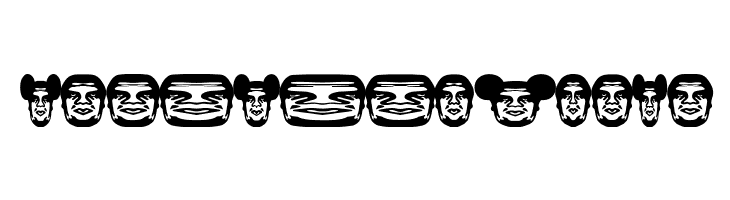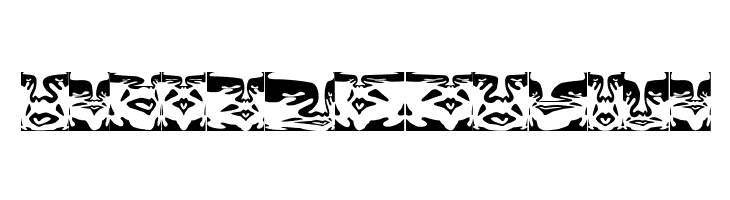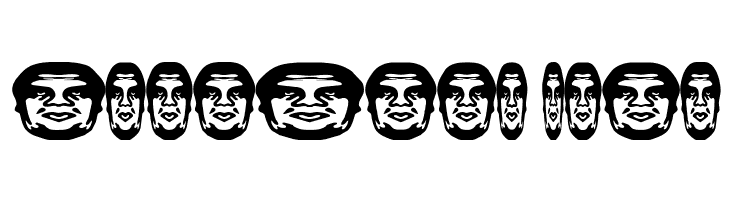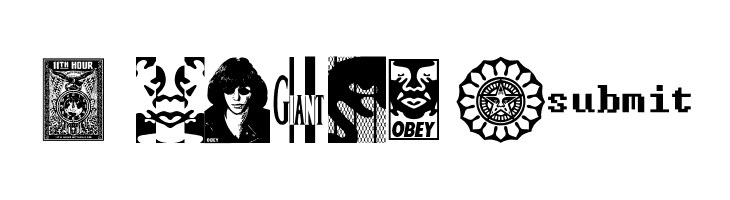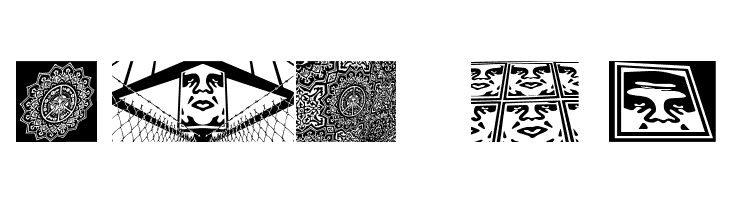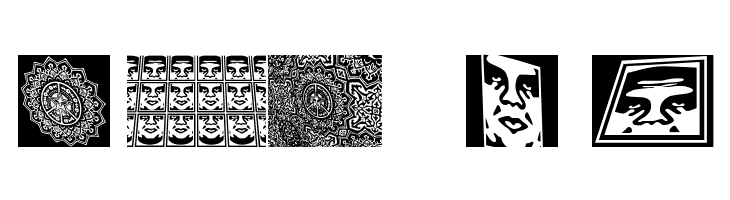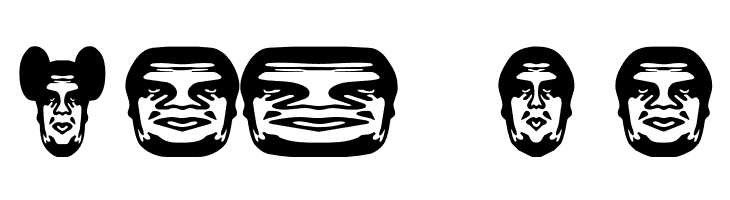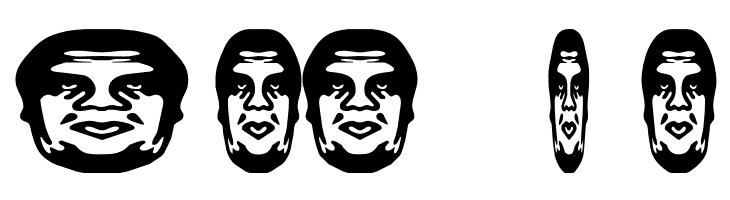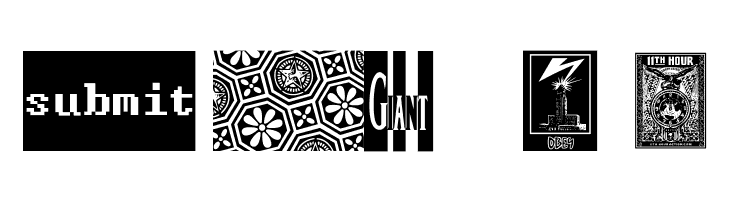
A decorative and artistic typeface with intricate designs and patterns.
A decorative, artistic font with intricate designs and bold visuals.
A collection of graphic symbols and images, each with unique and intricate designs.
A decorative font featuring bold, artistic symbols and imagery.
The image contains decorative graphics, not a standard font.
A graphic, face-based decorative font with strong visual impact.
The image does not depict a standard font.
A decorative series of stylized face graphics replacing traditional characters.
Decorative face-based font with exaggerated proportions.
A decorative and abstract font with intricate patterns and bold contrasts.